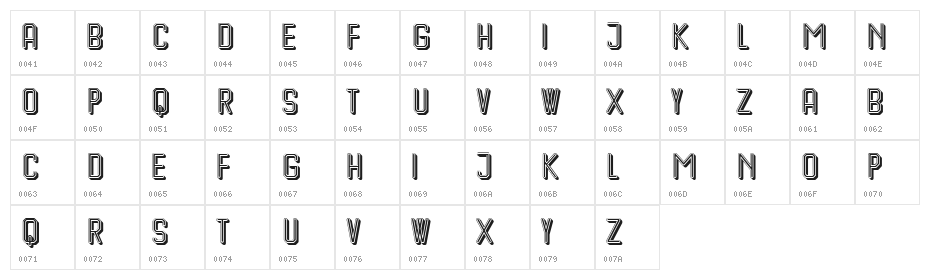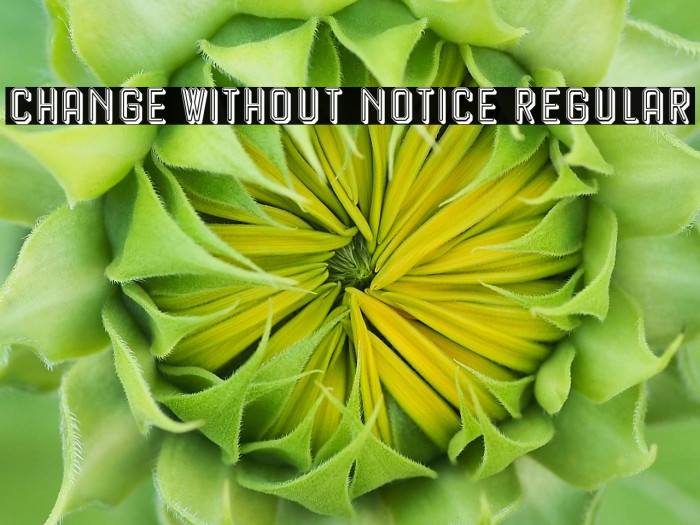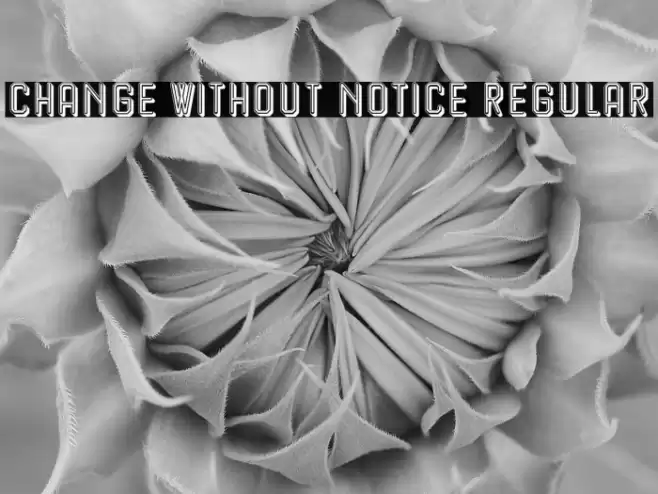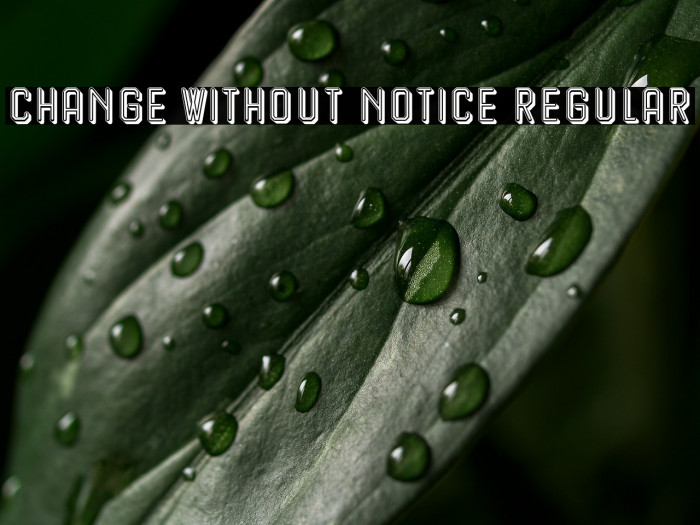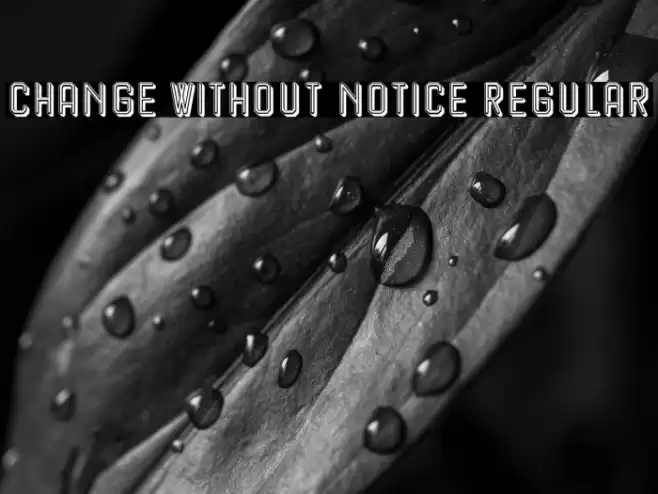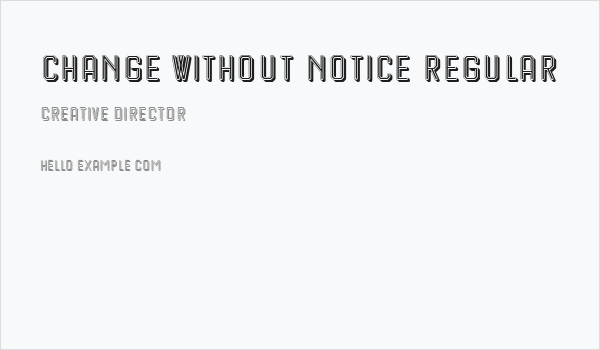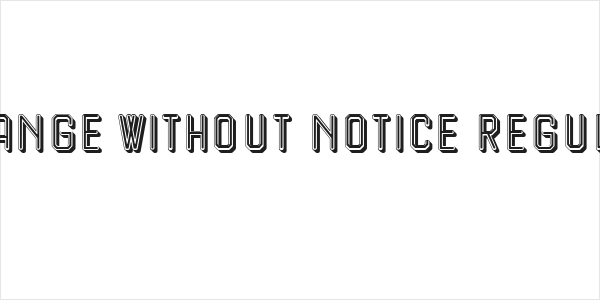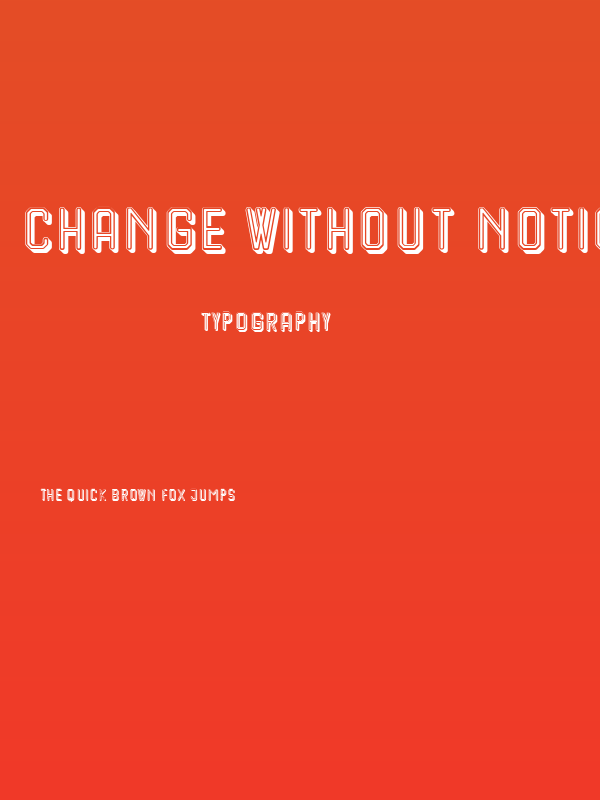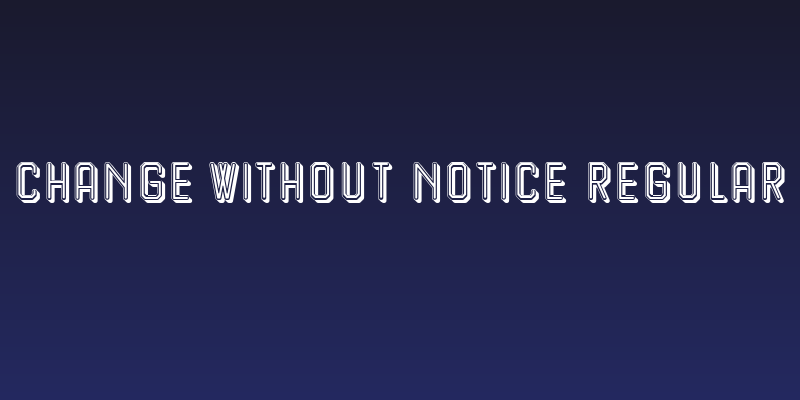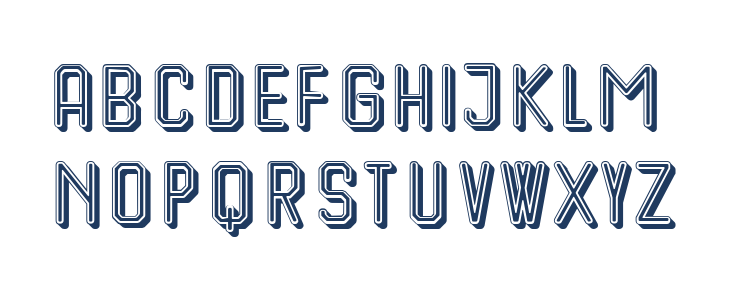
Change Without Notice Regular Font
Change Without Notice Regular Description
This font features a bold, geometric design with a distinct three-dimensional effect. The characters are outlined with a double line, creating a shadow-like appearance that adds depth and dimension. The uppercase letters are uniform in height and width, giving a structured and cohesive look. The style is reminiscent of retro or vintage signage, making it eye-catching and suitable for display purposes. The font's unique design elements make it stand out, with clean lines and sharp angles that convey a sense of modernity and sophistication.
| Proposed Projects | Ideal for use in posters, logos, branding, and any project needing a striking, vintage-inspired typeface. |